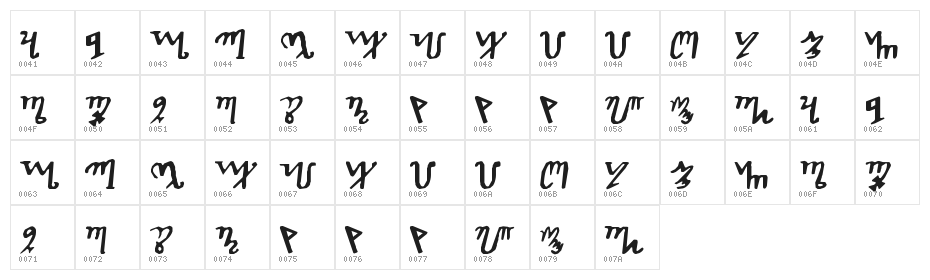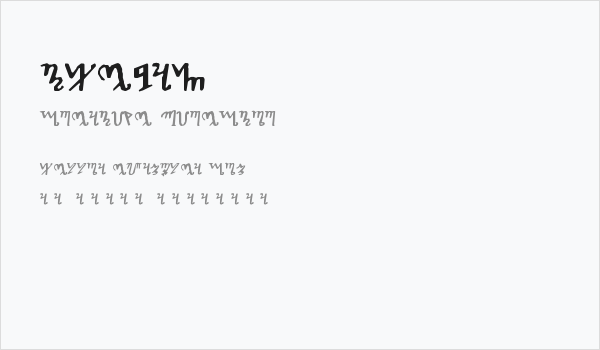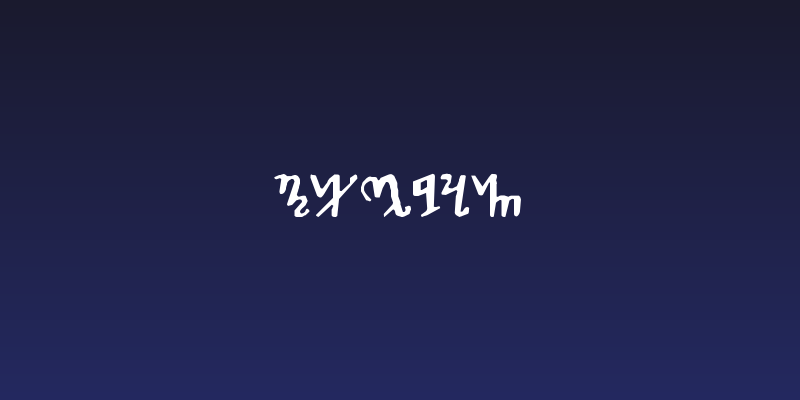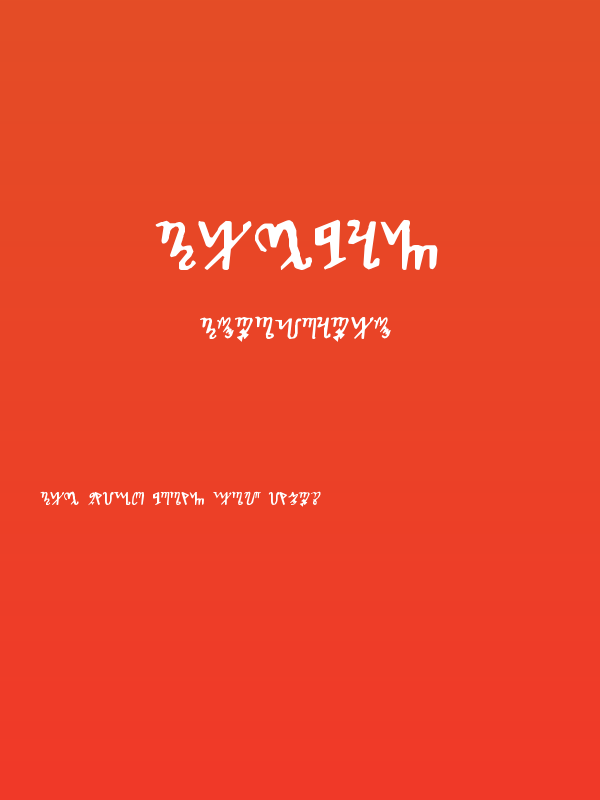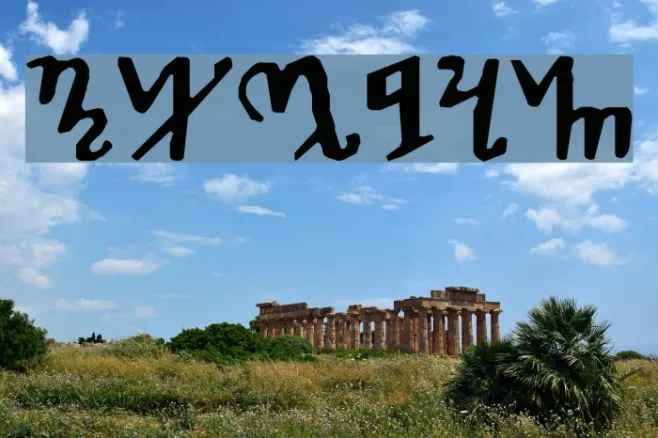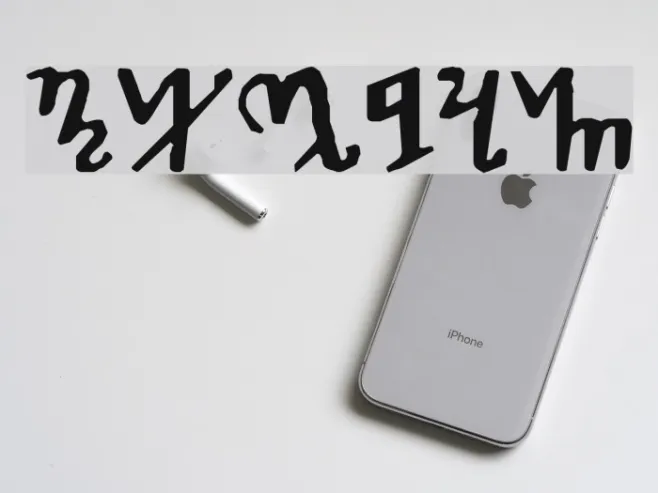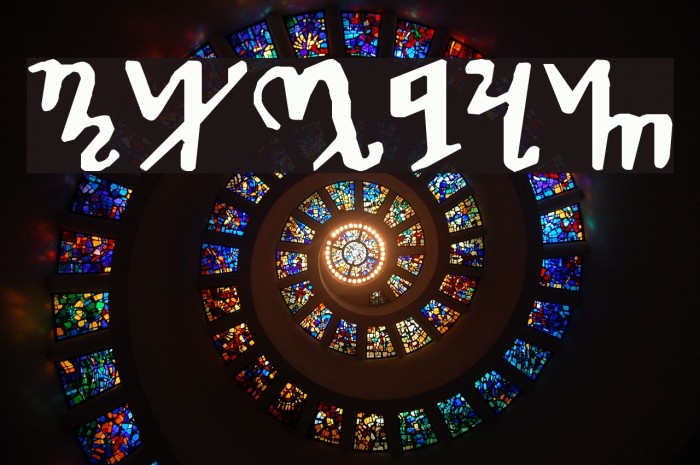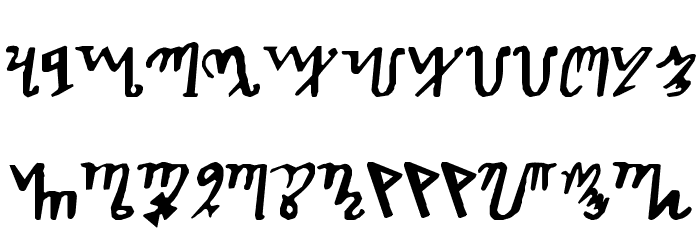
Theban Font
Theban Description
This script is known for its mystical and ancient appearance, often associated with magical or esoteric texts. The characters are unique and ornate, featuring a combination of sharp angles and smooth curves, which gives them a mysterious and cryptic feel. Each letter is distinct, with some resembling runes or symbols rather than traditional alphabetic characters. The overall aesthetic is both decorative and enigmatic, making it suitable for projects that require an element of mystery or historical intrigue.
| Overall Style | Mystical, Ancient, Decorative |
| Use Case | Logos, Decorative text, Themed events |
| Proposed Projects | Ideal for fantasy book covers, magical or esoteric themed designs, and historical reenactments. |